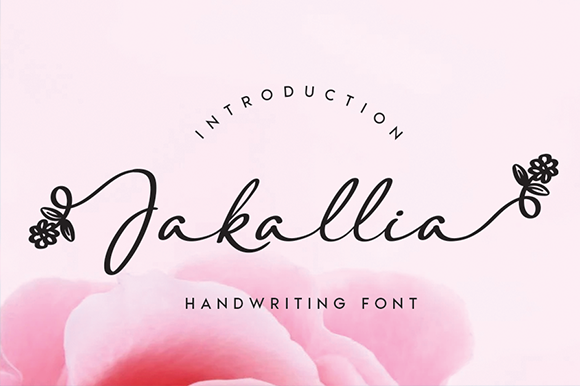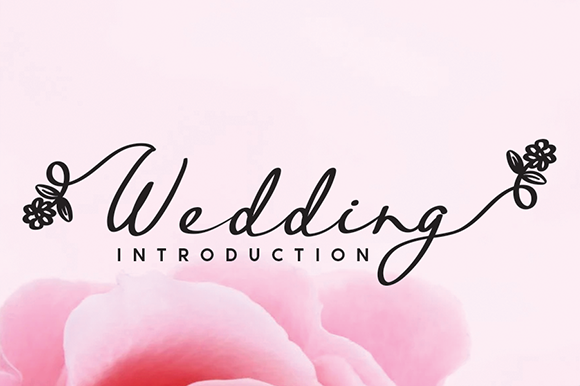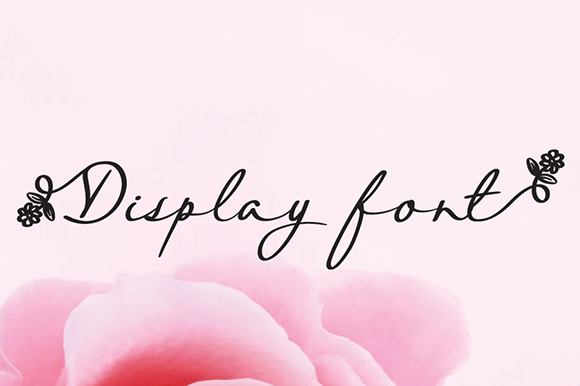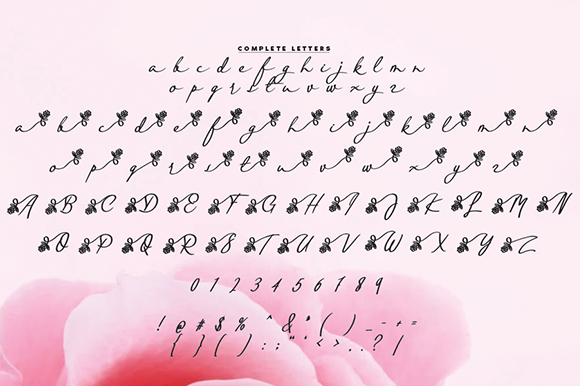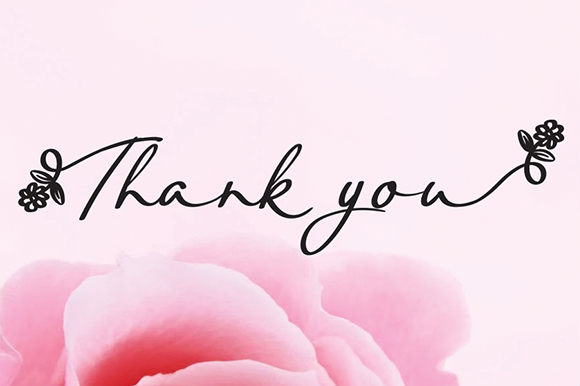
Jakallia Font
About Jakallia Font
Jakallia is a gorgeous handwritten font. It features flower-themed characters and extras that will add a cute touch to your crafting projects. Whether you’re looking for fonts for Instagram or calligraphy scripts for DIY projects, Jakallia will turn any creative idea into a true piece of art!